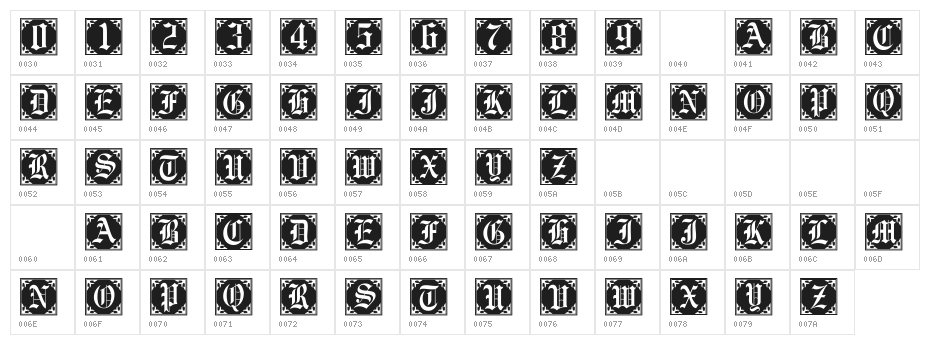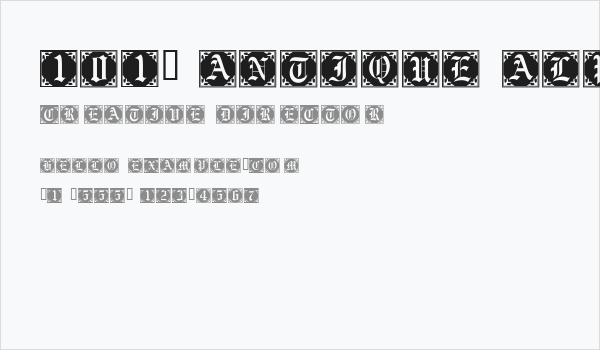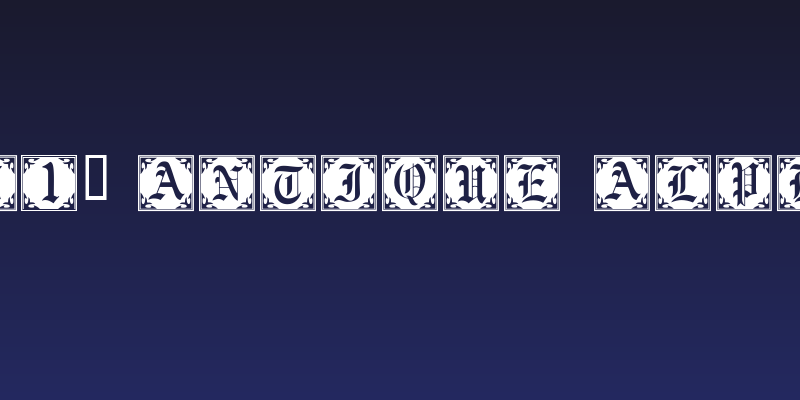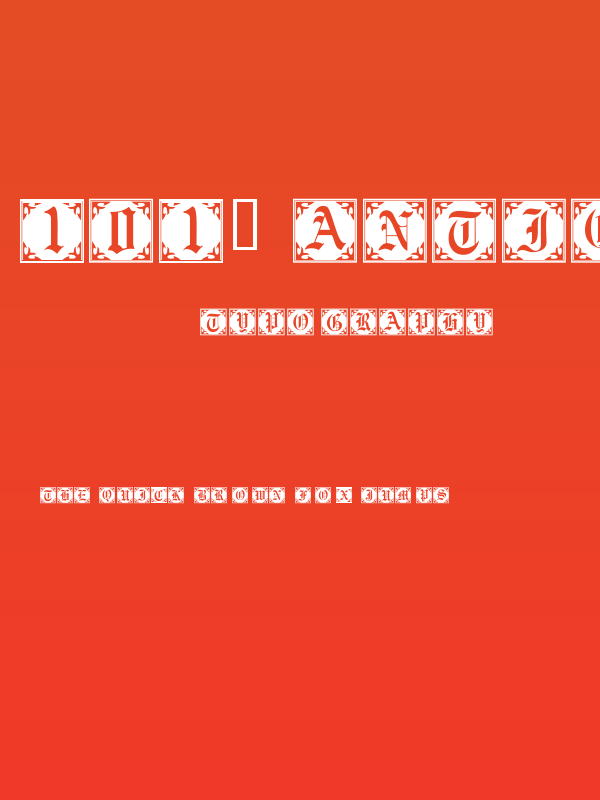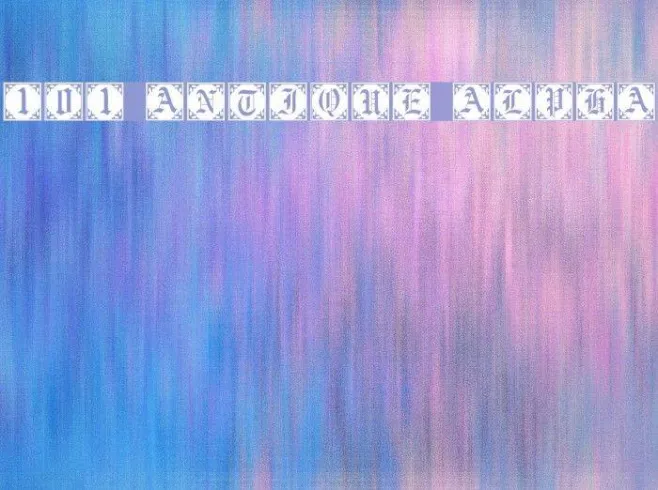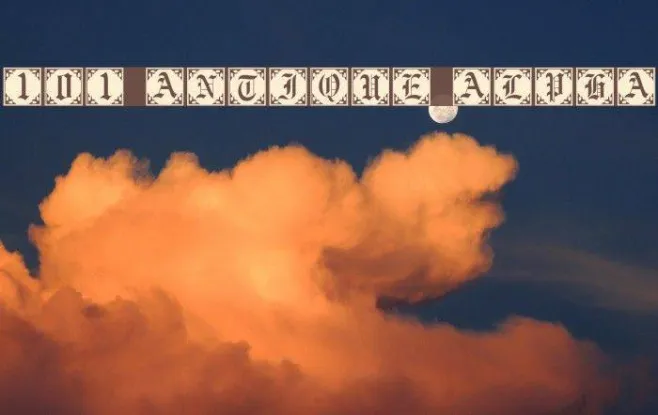
101! Antique Alpha Font
101! Antique Alpha Description
This font features a highly decorative and intricate design, reminiscent of traditional blackletter styles. Each character is enclosed within a square frame, adding a unique boxed appearance. The letters are ornate, with elaborate flourishes and sharp angles, creating a sense of historical elegance. The bold strokes and high contrast between thick and thin lines enhance its dramatic and vintage appeal. This style is often associated with medieval manuscripts and heraldic designs, making it suitable for projects that require a touch of antiquity and sophistication.
| Proposed Projects | Ideal for vintage-themed posters, historical event invitations, book covers, and branding that requires a classic or medieval touch. |